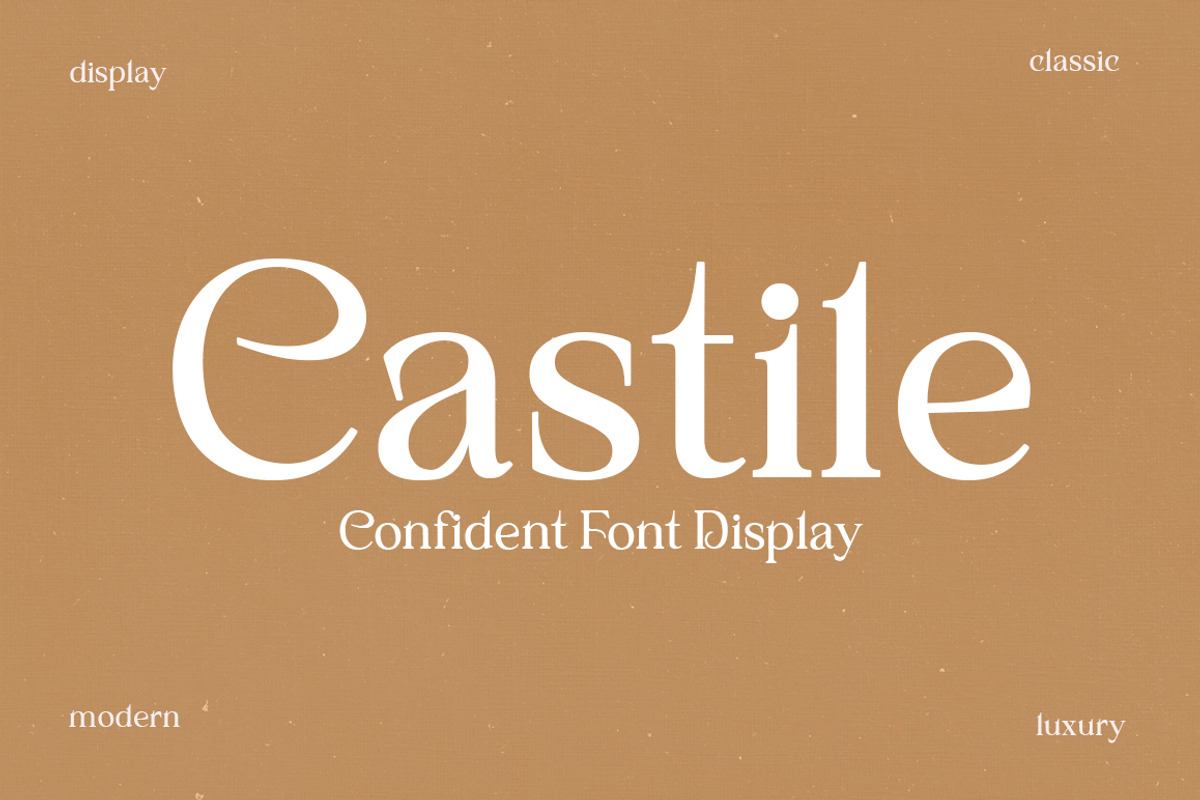
The Castile Font Free Download is an elegant and timeless typeface designed to bring sophistication and style to your designs. With its graceful serifs and refined letterforms, Castile is perfect for creating high-end branding, logos, invitations, editorial designs, and more. Whether you're working on luxury branding, wedding projects, or professional content, Castile adds a polished and classy touch to your work.
Castile Font Free Download is ideal for designers seeking a versatile and refined font with a classic, elegant look. Perfect for upscale branding, event invitations, or creative projects that require a sophisticated touch, this font will elevate your designs. Download it today and add a touch of elegance and refinement to your creative work with Castile!